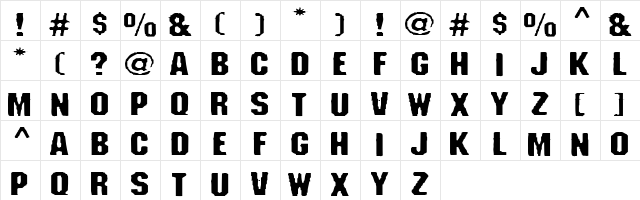
Fanatika Two Regular
Design Context for Fanatika Two Typeface
Fanatika Two is a composed and adaptable typeface that performs quietly and consistently across a wide range of design contexts.